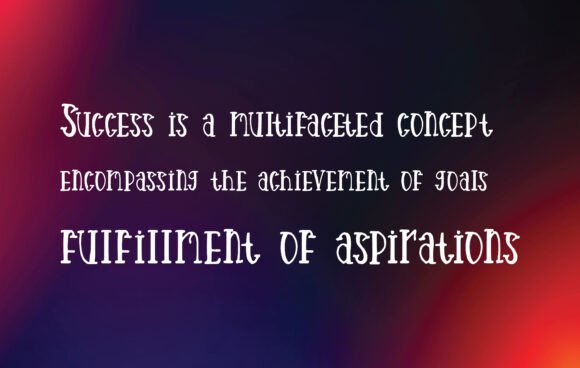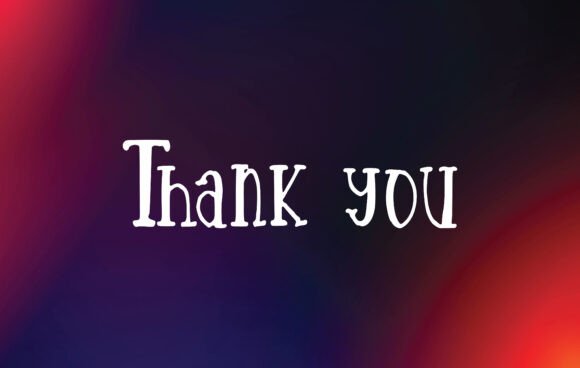
Introduction to Isabel Font
Have you ever been in a creative flow, where your ideas just pour out of your mind, and you can’t wait to bring them to life? That’s exactly what happened to me when I first laid eyes on the Isabel Font. Its beautiful, handwritten design instantly sparked a desire to create something special.
As a designer, I know how essential a great design resource can be to take your creative project to the next level. And that’s exactly what Isabel Font offers – a high-quality, free download that’s perfect for creating eye-catching logos, branding, and quotes. Whether you’re working on a personal project or a client’s brief, this font is sure to add a touch of elegance and sophistication to your design.
With its transparent background and smooth lines, Isabel Font is a versatile choice that’s perfect for a wide range of design applications. So, what are you waiting for? Download Isabel Font today and discover a whole new world of creative possibilities!
Key Features of Isabel Font
- Includes multiple font styles and weights for versatility
- Transparent background allows for seamless integration with graphics and designs
- Unique, elegant design with a touch of sophistication, perfect for branding and typography projects
Honest Review: Isabel Font
As a designer, I’m always on the lookout for high-quality fonts that can elevate my creative projects. Recently, I stumbled upon the Isabel Font, and I’m excited to share my thoughts on this design resource.
- ✨ Beautiful and elegant design: The Isabel Font has a classic and sophisticated look that makes it perfect for various creative projects, from wedding invitations to business cards.
- ✨ High-quality and crisp typography: The font is well-designed, with clear and sharp lines that make it easy to read.
- ✨ Transparent background: This is a great feature for designers who want to use the font on top of images or backgrounds without any issues.
- ⚠️ Limited character set: The Isabel Font only includes a limited set of characters, which may not be suitable for projects that require a full range of characters.
- ⚠️ Not suitable for bold text: The font may not be the best choice for projects that require bold or thick text, as it can become difficult to read.
Overall, I think the Isabel Font is a great design resource, but it’s essential to consider its limitations before using it in your creative project. If you’re looking for a high-quality font with a classic design, the Isabel Font is definitely worth checking out.
Tips for Getting the Most Out of Isabel Font
When using Isabel Font, make sure to use it with a transparent background to achieve a high-quality design. You can also experiment with different font sizes and colors to create a unique and creative project. Additionally, use Isabel Font in conjunction with other design elements, such as images and graphics, to add depth and visual interest to your project.
Isabel Font is commonly used in creative projects, such as logos, brochures, and social media graphics. Its high-quality design and transparent background make it an ideal choice for designers looking to create visually appealing and professional-looking projects.